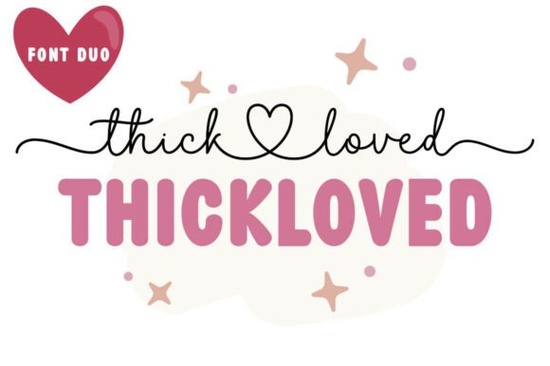
If you're looking for a handwritten script font that feels both romantic and effortlessly stylish, the Thickloved Duo Font might be exactly what your next project needs. Designed with care and attention to flow, this font pairing blends two complementary cursive styles that work beautifully together ideal for everything from wedding stationery to boutique branding.
What makes Thickloved Duo stand out is its balance of personality and practicality. The strokes are soft but confident, giving your text a hand-lettered warmth without sacrificing readability. Whether you’re designing a logo for a small business or crafting heartfelt greeting cards, this duo adds just the right amount of charm without overwhelming your layout.
Who is this font best suited for?
This font shines in projects where elegance meets approachability. If you fall into any of these groups, Thickloved Duo could become a go-to in your creative toolkit:
- Small business owners creating logos, packaging, or social media graphics that need a personal touch.
- Print-on-demand sellers designing mugs, tote bags, or wall art with inspirational quotes or romantic phrases.
- Wedding designers working on invitations, place cards, or signage especially if you like fonts with delicate flair like those found in our elegant wedding font collection.
- Crafters and hobbyists making custom cards, scrapbook elements, or digital planners who want something more expressive than standard handwriting fonts.
How does the duo actually work?
The Thickloved Duo includes two distinct but harmonious fonts: one slightly bolder and more structured, the other lighter and more fluid. Used together, they create visual rhythm perfect for headlines paired with subheadings, or main names alongside supporting details (like “Sarah & James” with “June 15, 2024” beneath).
Because both fonts share the same underlying letterforms and spacing logic, mixing them feels natural, not forced. You won’t need to tweak kerning endlessly to make them sit well side by side. And thanks to PUA (Private Use Area) encoding, all the swashes, alternates, and decorative glyphs are accessible directly through your design software no extra plugins required.
Where can you use it effectively?
Real-world applications matter more than pretty previews. Here’s where Thickloved Duo consistently delivers:
- Branding: Boutique shops, bakeries, florists, and wellness studios benefit from its friendly sophistication.
- Event stationery: Beyond weddings, think baby showers, anniversary parties, or vow renewals any occasion that calls for a tender, human touch.
- Digital products: Planners, quote graphics, or printable wall art gain instant polish when set in this duo.
- Social content: Instagram quote cards or Pinterest pins feel more authentic when using a font that mimics real handwriting, much like the styles in our whimsical wedding font selection.
It also pairs well with clean sans-serifs for contrast imagine Thickloved for a headline and a minimalist font like Montserrat for body text. This combo keeps designs modern while letting the script shine as the emotional anchor.
Is it easy to use for beginners?
- ✅ Confirm your project needs a romantic, flowing script not a bold display or geometric typeface.
- ✅ Test the font at different sizes some scripts lose legibility when too small, but Thickloved holds up well down to about 18pt.
- ✅ Pair it with plenty of white space; this font breathes best when not crowded.
Fonts like Thickloved Duo remind us that good design often lies in subtlety a gentle curve, a thoughtful ligature, a sense of movement that feels human. If your work benefits from warmth and grace, this duo is worth adding to your library.